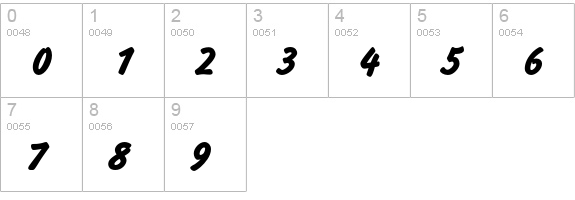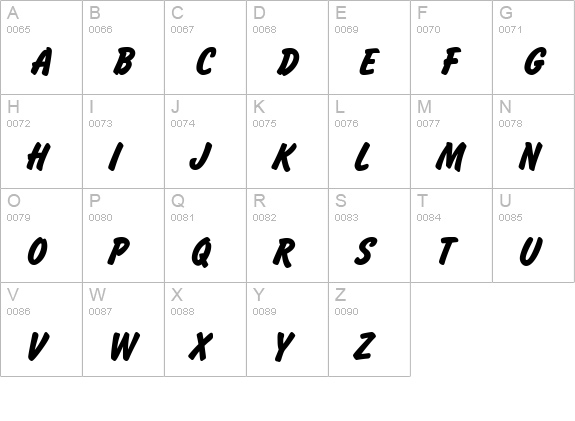
Inform Bold Cyrillic Font Details
Inform Bold Cyrillic is a strong, high-contrast variant in the Inform typeface family \xE2\x80\x94 well suited to headlines, attention-grabbing titles, and strong calls-to-action.
The Inform Bold Cyrillic font is a stunning typeface that exudes elegance and sophistication. With its bold and strong letterforms, this font is perfect for grabbing attention and making a statement. The Cyrillic characters add a touch of uniqueness, making it suitable for various design projects, including branding, headlines, posters, and more. What sets the Inform Bold Cyrillic font apart is its versatility and legibility. Each letter is meticulously crafted to ensure clarity and readability, even at smaller sizes. Whether used in print or digital media, this font maintains its sharpness and clarity, making it an excellent choice for any project. One of the best aspects of the Inform Bold Cyrillic font is that it is freely available to download at FontsMarket.com. This means that you can effortlessly access this font and integrate it into your design work without any hassle or additional cost. With just a few clicks, you will have this remarkable typeface at your fingertips, ready to elevate your designs to new heights. So, if you are looking for a bold and impactful font that combines elegance and legibility while incorporating Cyrillic characters, the Inform Bold Cyrillic font is the perfect choice. Download it for free at FontsMarket.com and let your creativity soar.